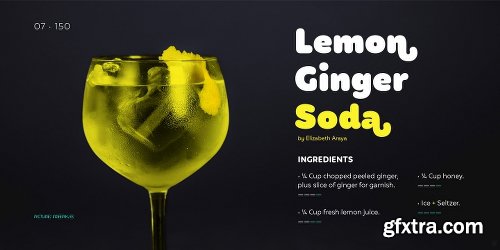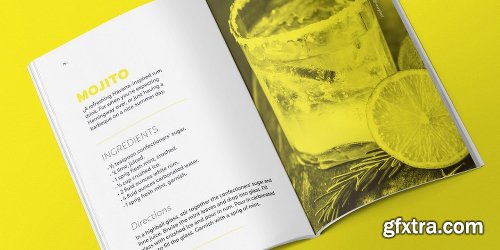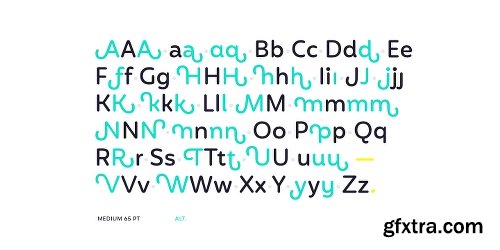
Mohr Rounded Font Family - 27 Fonts
Mohr Rounded is a neutral, versatile and contemporary font based on some characteristics found in humanist sans-serif typefaces.